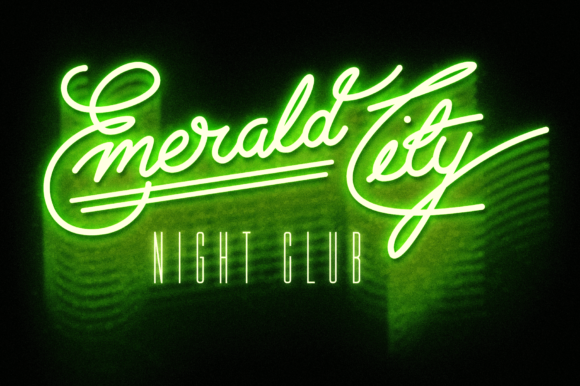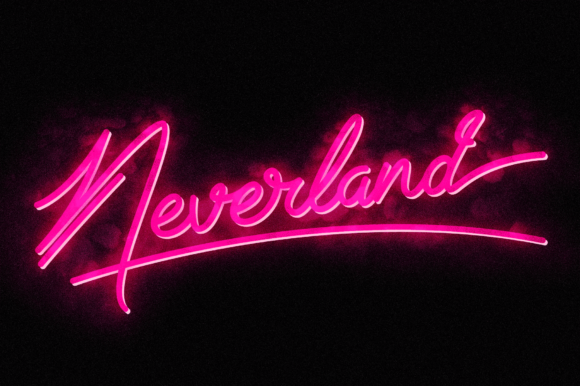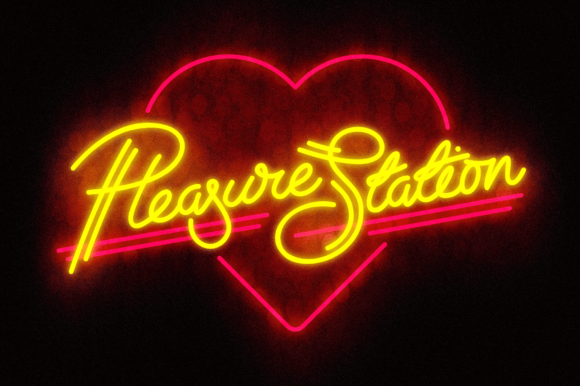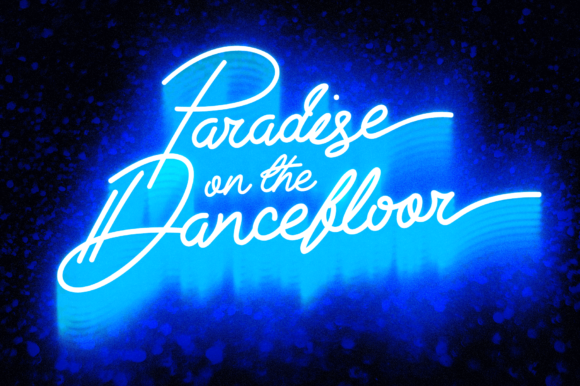
Disco Rendezvous Font
Disco Rendezvous is a cool and unique looking duo font (script and display). This font is PUA encoded which means you can access all of the glyphs and swashes with ease!